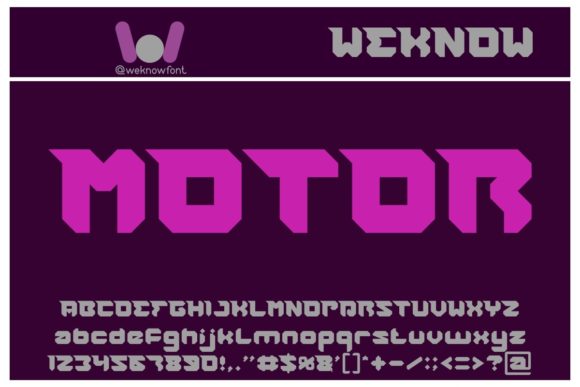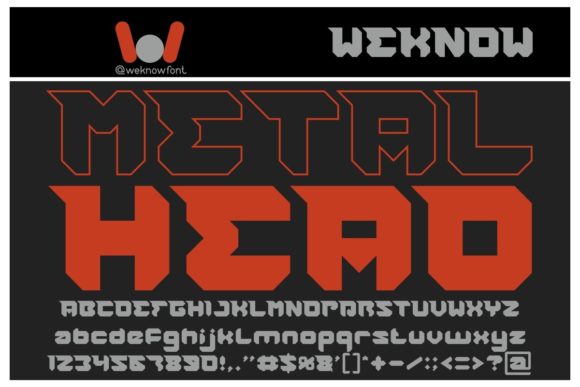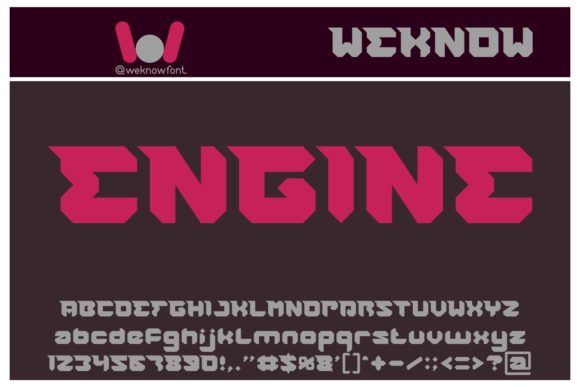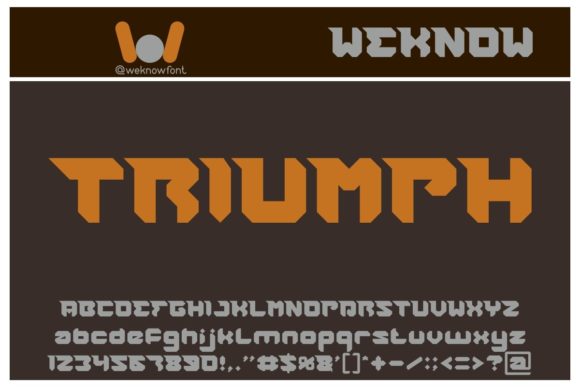
Introduction to Rhinoceros Break the Wall Font
Rhinoceros Break the Wall is a techno looking sci-fi themed font.
It is suitable for logos, headline, apparel industry, poster, music, movie, game, magazine, book, comic, cartoon, YouTube, Instagram, website, or any of your creative design project .
Key Features of Rhinoceros Break the Wall Font